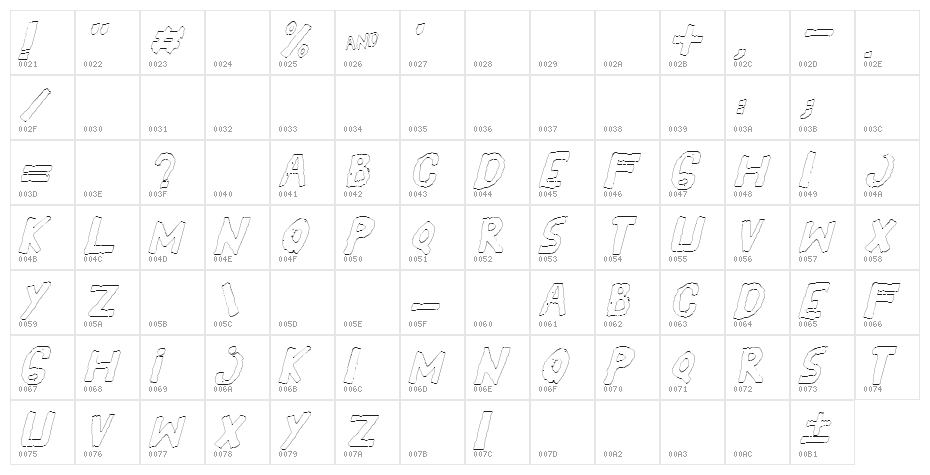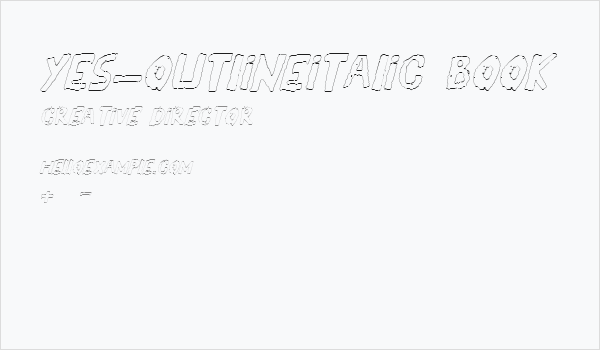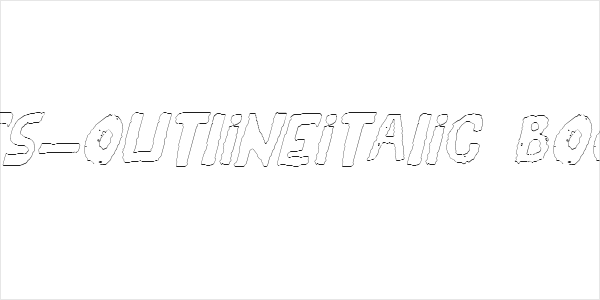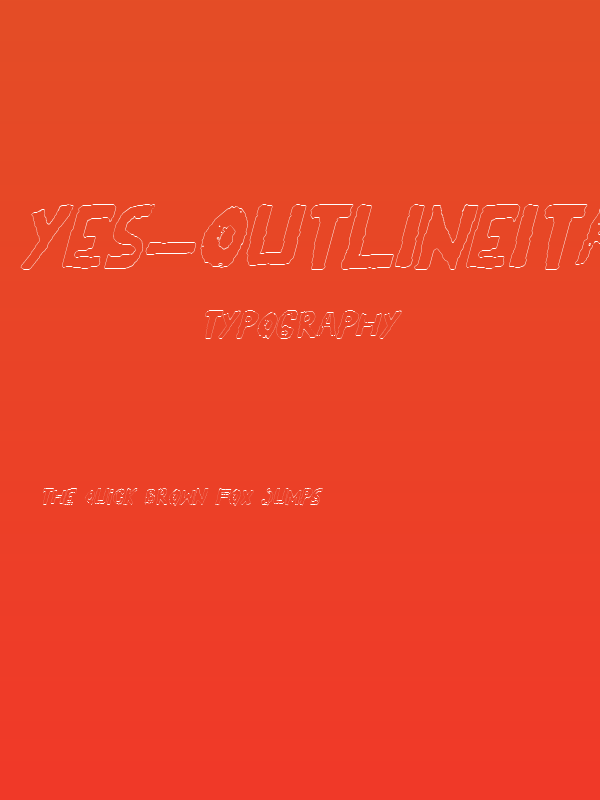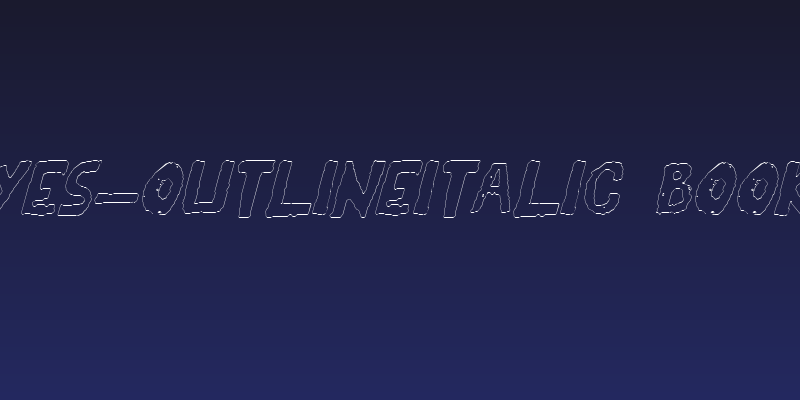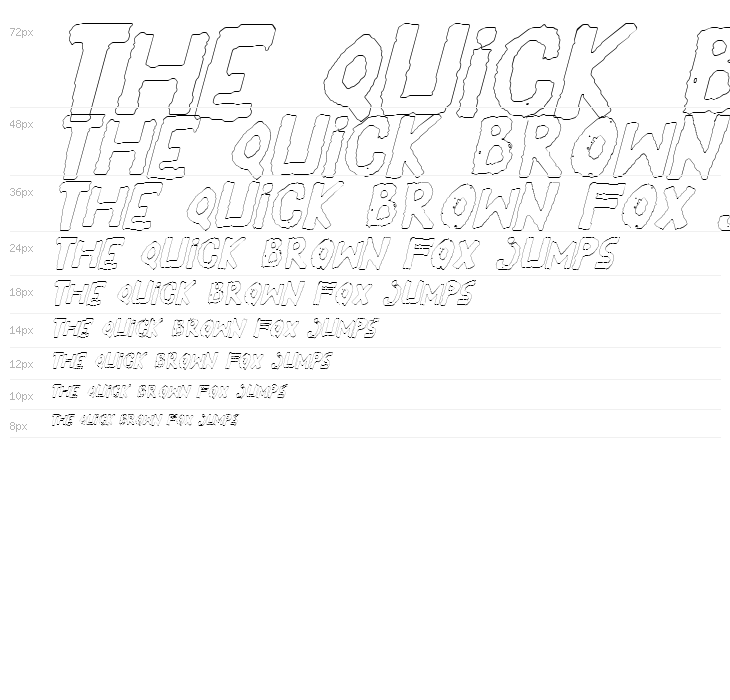
YES_outlineitalic Book Font
YES_outlineitalic Book Description
This font features a distinctive outline style with an italic slant, giving it a dynamic and energetic appearance. The characters are bold and slightly condensed, with a playful and modern aesthetic. The uppercase and lowercase letters maintain a consistent style, with smooth curves and sharp angles that create a sense of movement. The numbers and special characters are designed to match the overall style, ensuring a cohesive look across all elements. The outline effect adds a layer of depth, making the font stand out in various design contexts.
Proposed ProjectsIdeal for posters, headlines, branding, and any design project that requires a bold and eye-catching typeface.